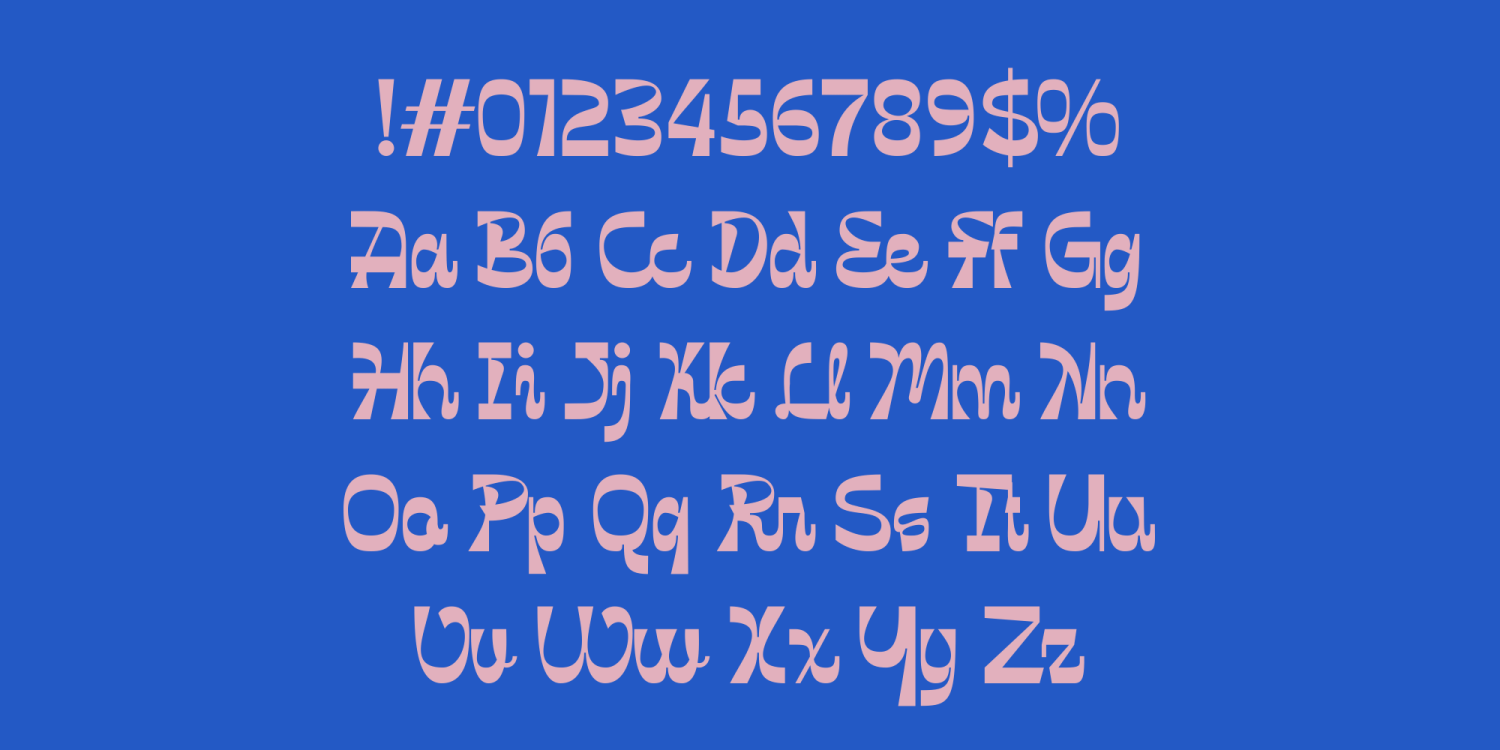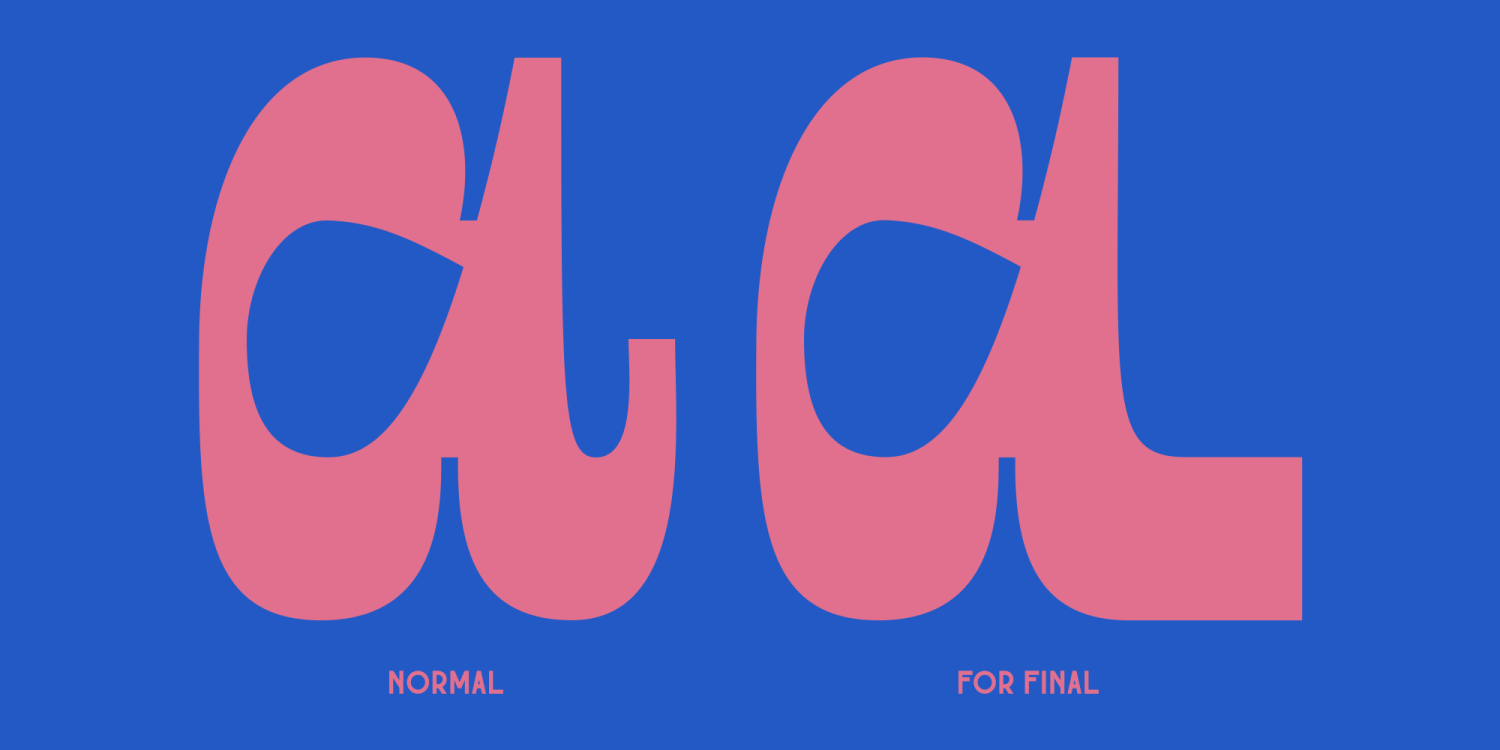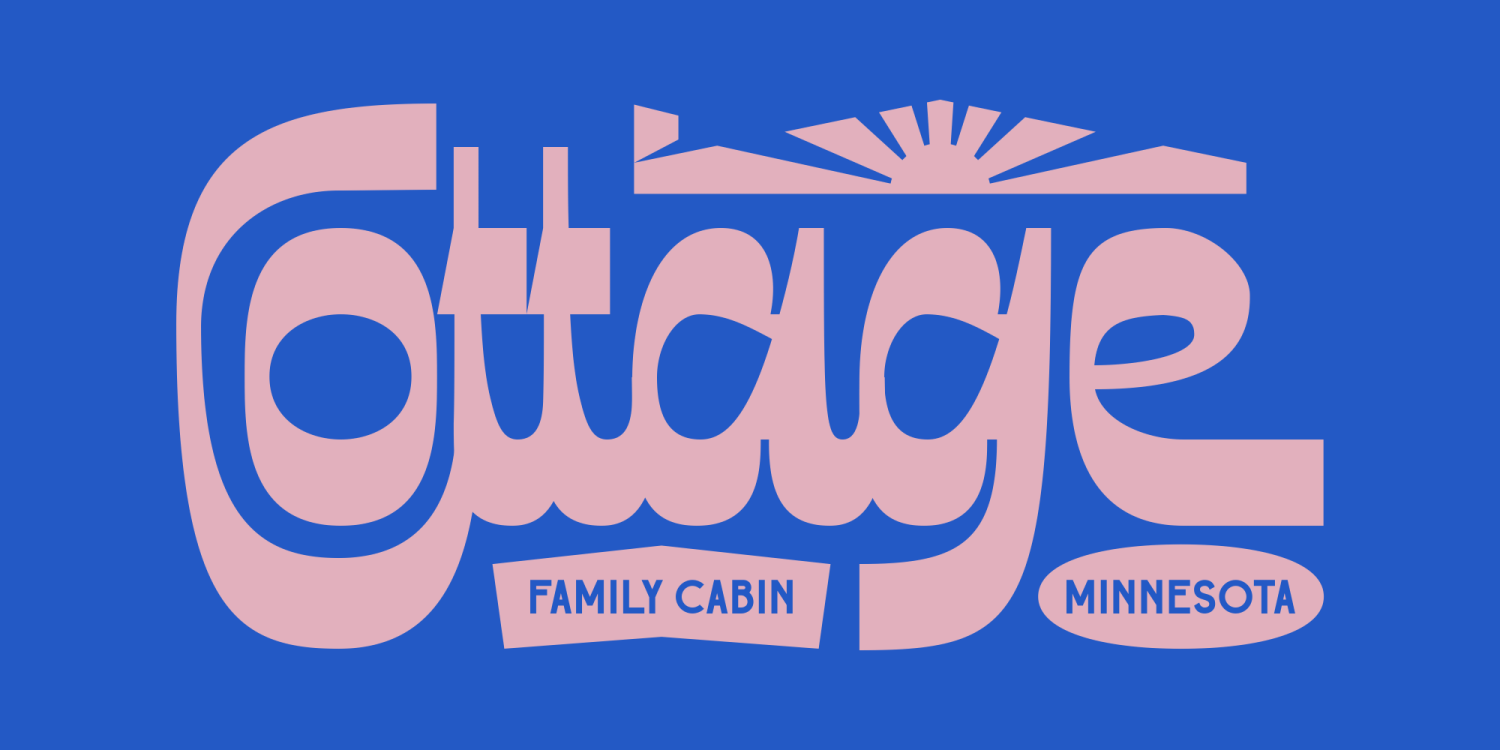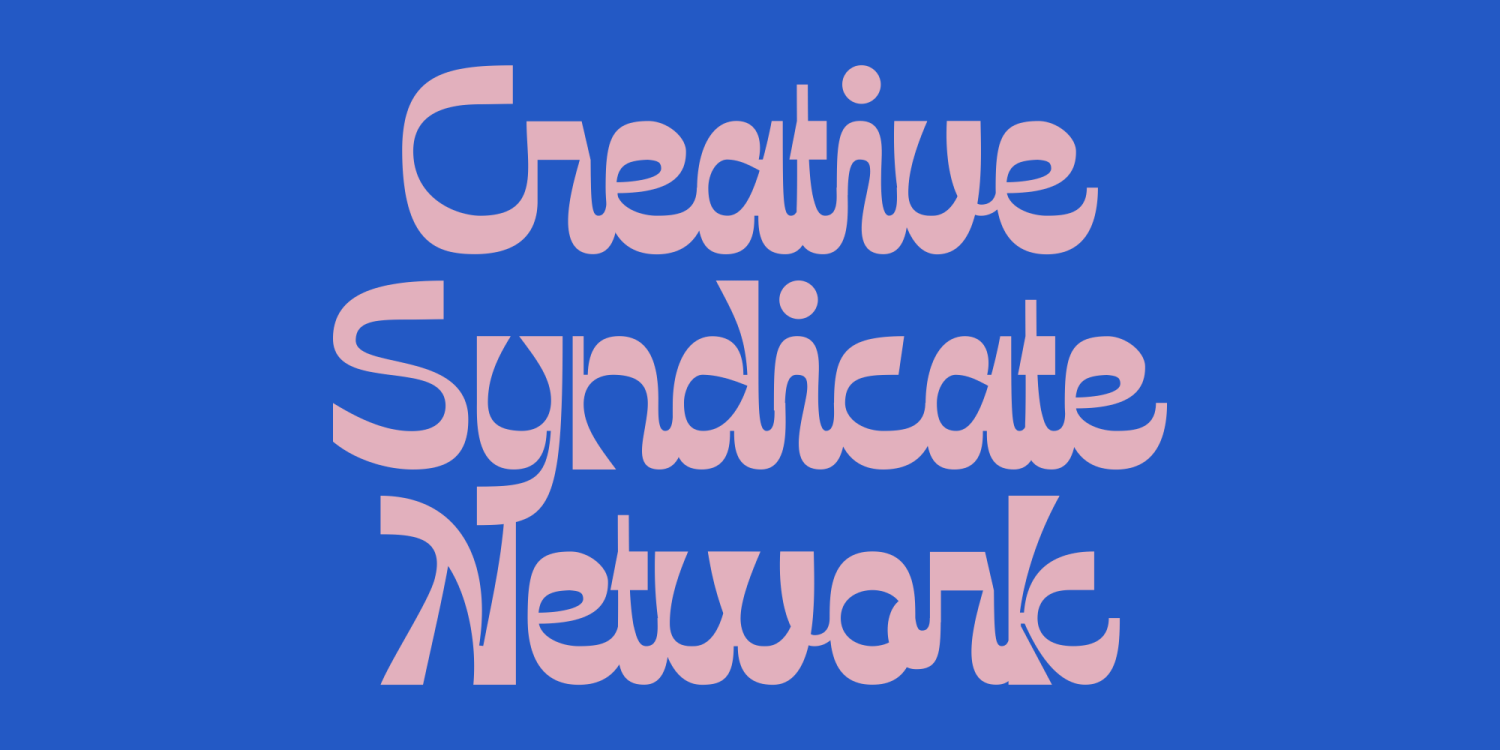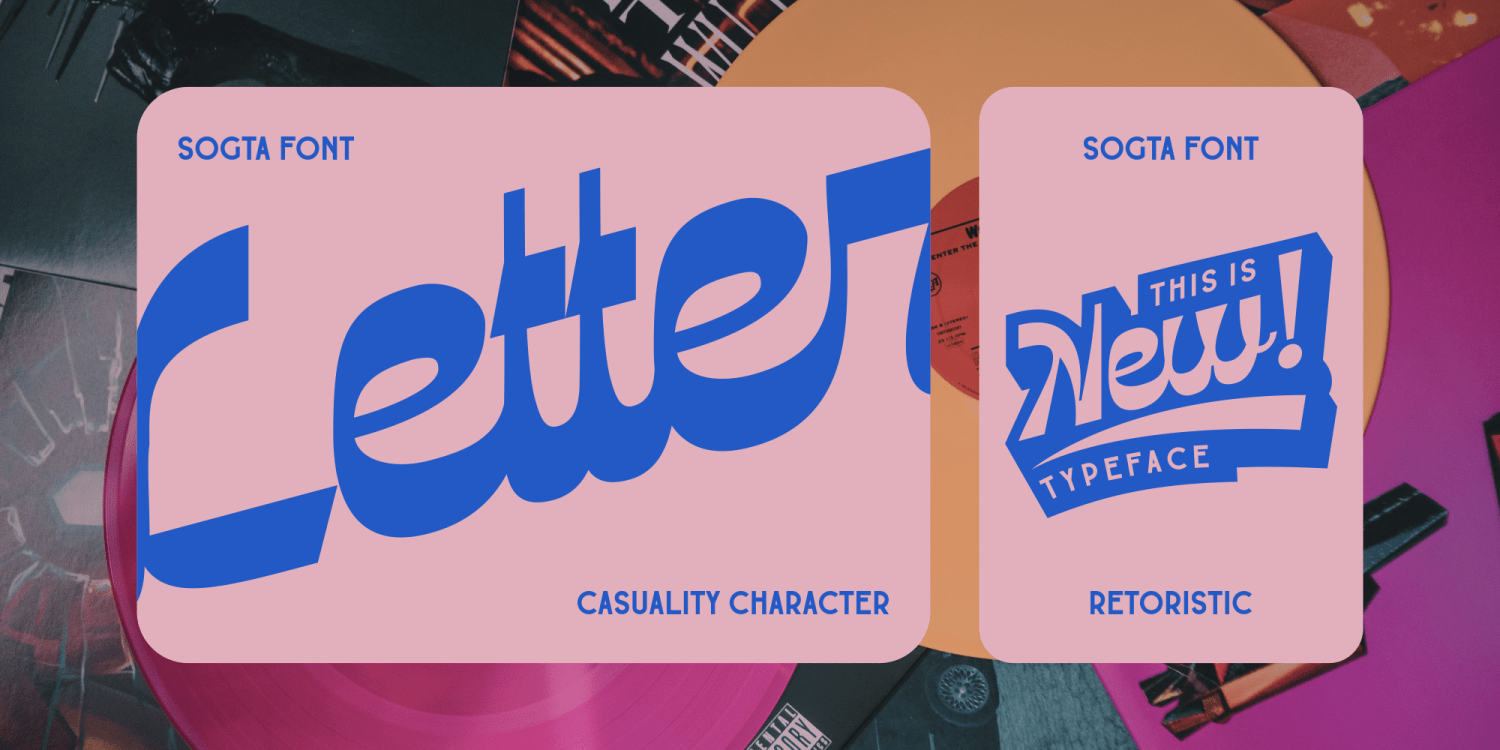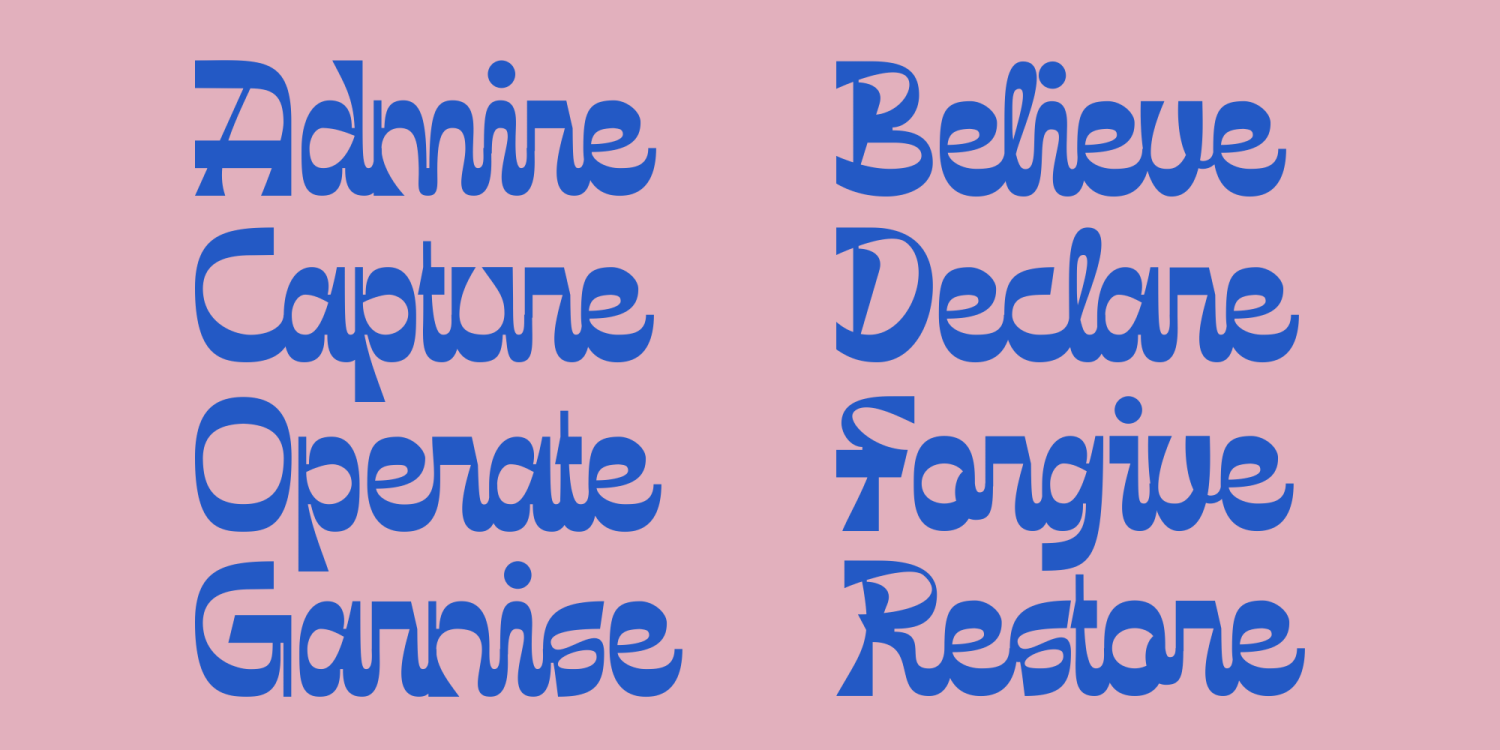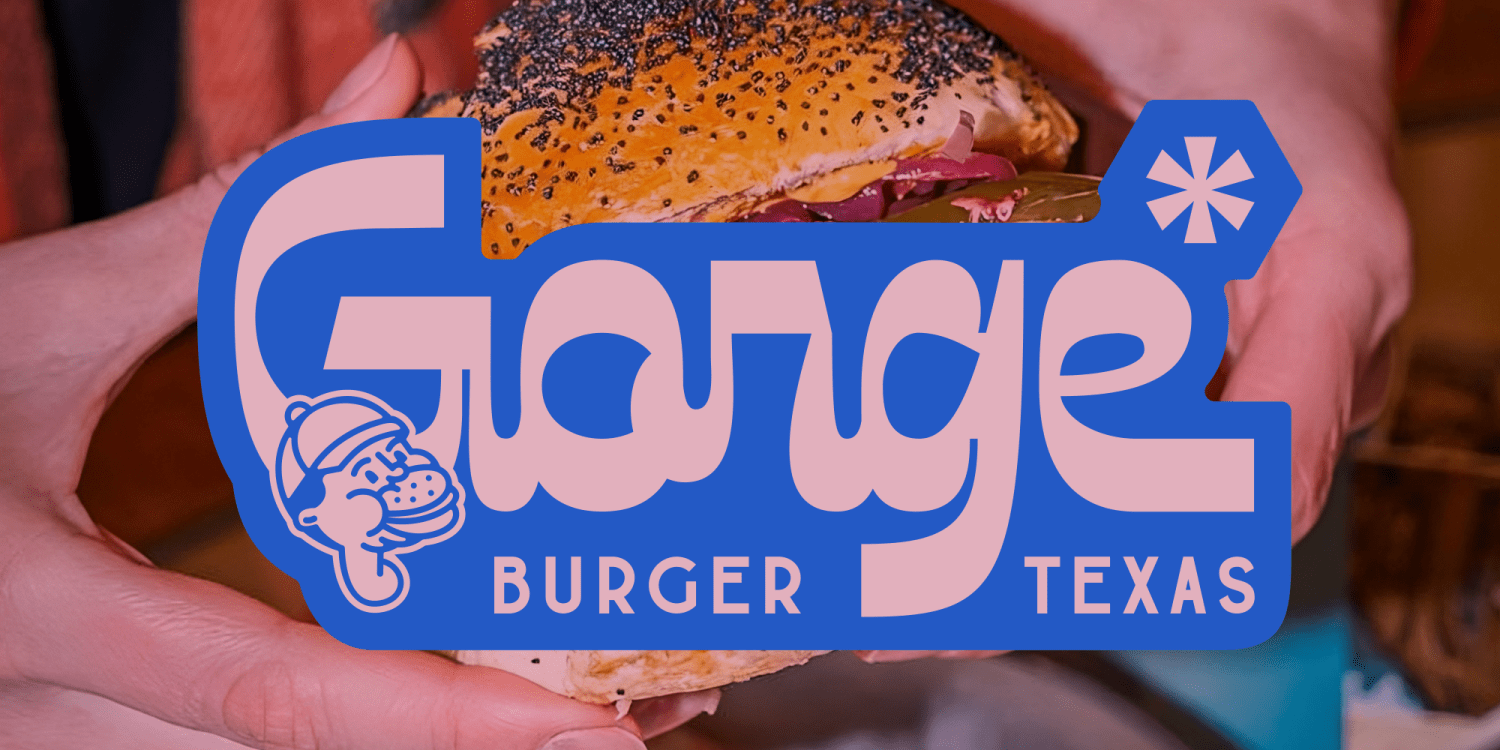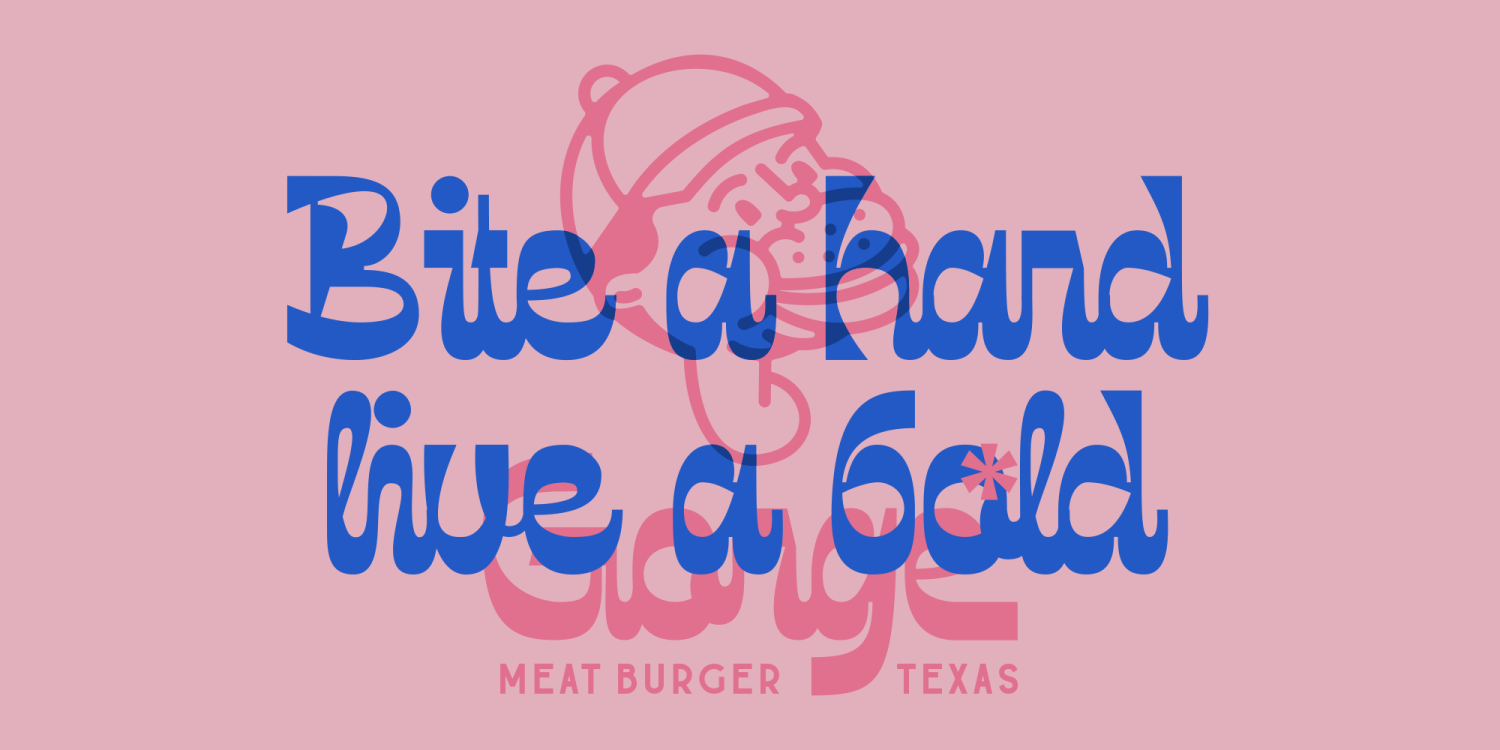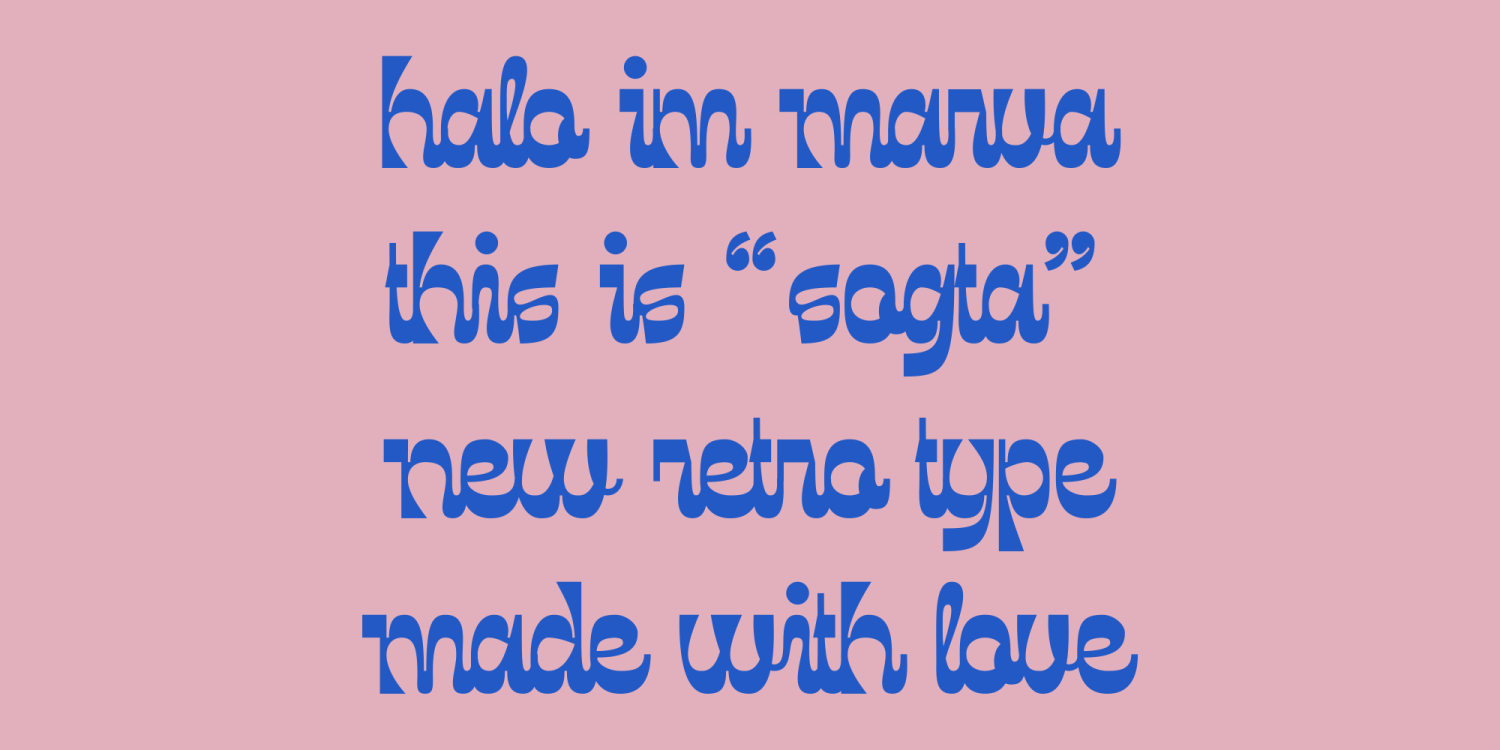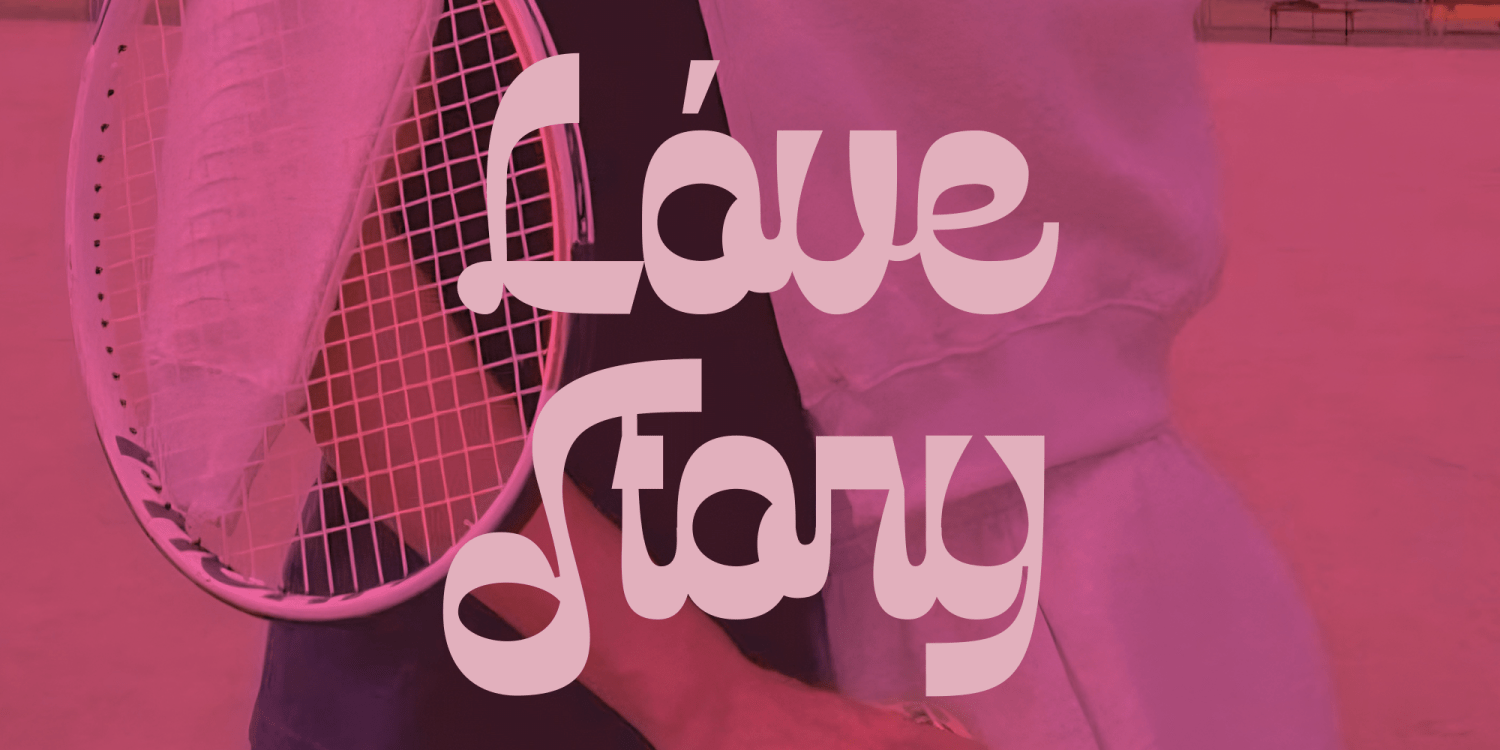
Sogta
Font Family by Marvadesign
Sogta is a bold and playful display script typeface that combines retro aesthetics with a modern twist. Its thick, flowing curves and sharp geometric cuts create a unique visual rhythm that feels both nostalgic and fresh. Designed with personality and flair, Sogta includes a range of alternative characters and distinctive ligatures, giving designers flexibility to craft expressive and dynamic typography. The font's versatility makes it ideal for branding, posters, packaging, and logotypes that aim to stand out with confident, vintage-inspired energy.